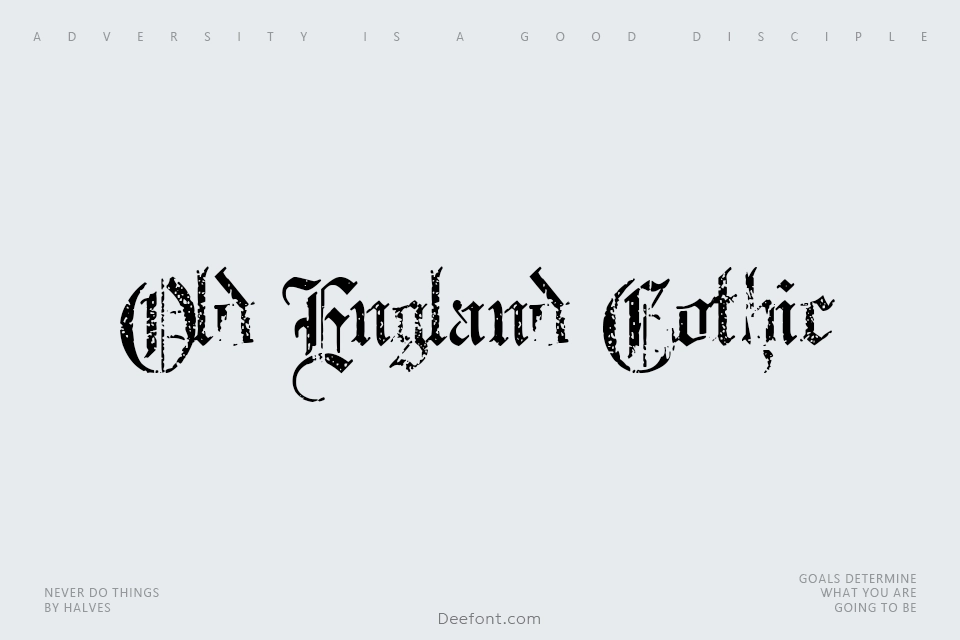
Old England Gothic Font
Old England Gothic is a dramatic Gothic typeface that combines classic medieval script elements with bold, striking characteristics. Featuring ornate uppercase letters with intricate embellishments and sharp angular lines, this font embodies the essence of historical English gothic design. Perfectly suited for vintage-themed projects, book covers, posters, and branding applications that demand authentic period styling and sophisticated visual impact.